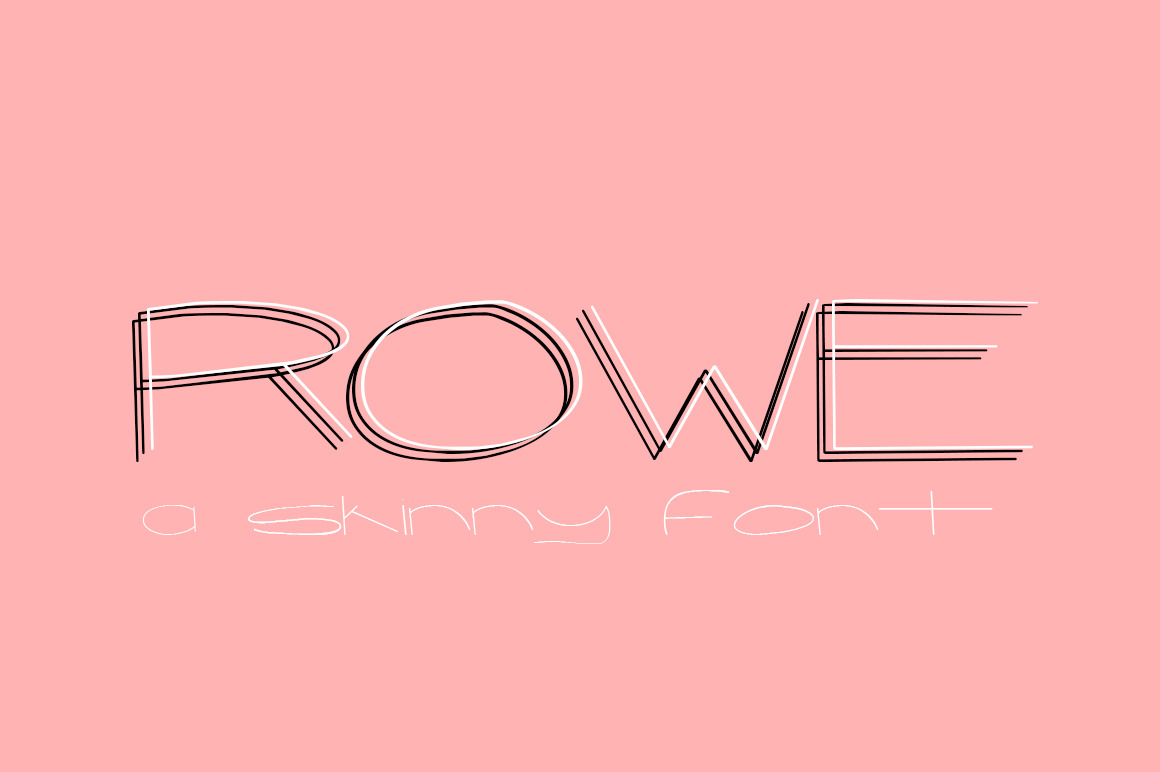
ROWE Skinny Hand Lettered Font
Rowe is a skinny and stubby little font with a good heart and a sweet personality! This font gives an authentic, hand written look to any project.